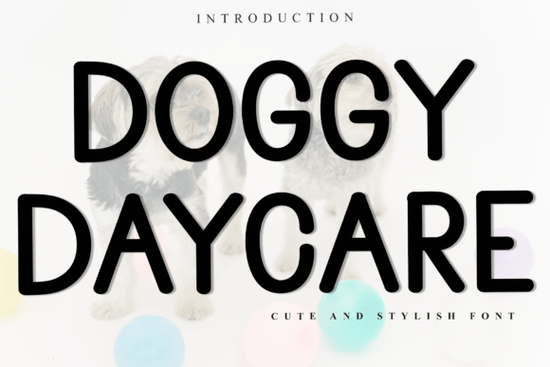
Designers, crafters, and small business owners often look for unique ways to add personality to their projects. The Doggy Daycare Font is a great option if you're searching for a festive and whimsical typeface that brings a touch of holiday cheer to your work. This font is perfect for creating eye-catching designs that stand out, whether you're working on greeting cards, gift tags, or other seasonal projects.
One of the standout features of the Doggy Daycare Font is its decorative elements and playful style. It’s ideal for anyone looking to add a sense of nostalgia and warmth to their typography. The font is PUA encoded, which means you can access all the special glyphs and ligatures without any hassle. This makes it a versatile choice for a wide range of creative applications.
What Makes Doggy Daycare Font Stand Out?
The Doggy Daycare Font is designed with a festive spirit in mind. Its whimsical flair and decorative details make it ideal for holiday-themed projects. Whether you're creating handmade cards or designing promotional materials for a seasonal event, this font can help bring your vision to life. Its cheerful aesthetic adds a sense of fun and celebration to any text.
For those who enjoy working with custom typography, the PUA encoding ensures that you have full access to all the unique characters and symbols included in the font. This makes it easier to experiment with different styles and layouts without worrying about missing out on any special features.
Who Can Benefit from Using This Font?
This font is especially useful for print-on-demand sellers who want to create unique designs for their customers. It also works well for small businesses looking to add a personal touch to their branding during the holiday season. Crafters and hobbyists will appreciate the ease of use and the variety of applications this font offers.
If you're a designer looking for something fresh and original, the Doggy Daycare Font can be a valuable addition to your toolkit. It’s easy to integrate into your workflow and can help elevate the visual appeal of your projects without requiring advanced technical skills.
How to Use the Doggy Daycare Font Effectively
When using the Doggy Daycare Font, consider pairing it with simpler fonts to balance the design. For example, you might use it for headings or titles while using a more standard font for body text. This approach helps maintain readability while still allowing the festive elements of the Doggy Daycare Font to shine.
Another tip is to experiment with different colors and backgrounds to see how the font looks in various settings. The decorative nature of the font may work best with warm, inviting color schemes that match the holiday theme.
As you explore the possibilities of this font, remember to keep your design goals in mind. Whether you're creating for personal enjoyment or professional use, the Doggy Daycare Font offers a fun and creative way to express your ideas.
Before finalizing your project, take a moment to review your design and ensure that the font complements the overall look and feel. Testing it in different formats such as digital and print can also help you make any necessary adjustments.
By incorporating the Doggy Daycare Font into your work, you can add a unique and festive element to your designs. Its charm and versatility make it a great choice for anyone looking to bring a little holiday magic to their projects.